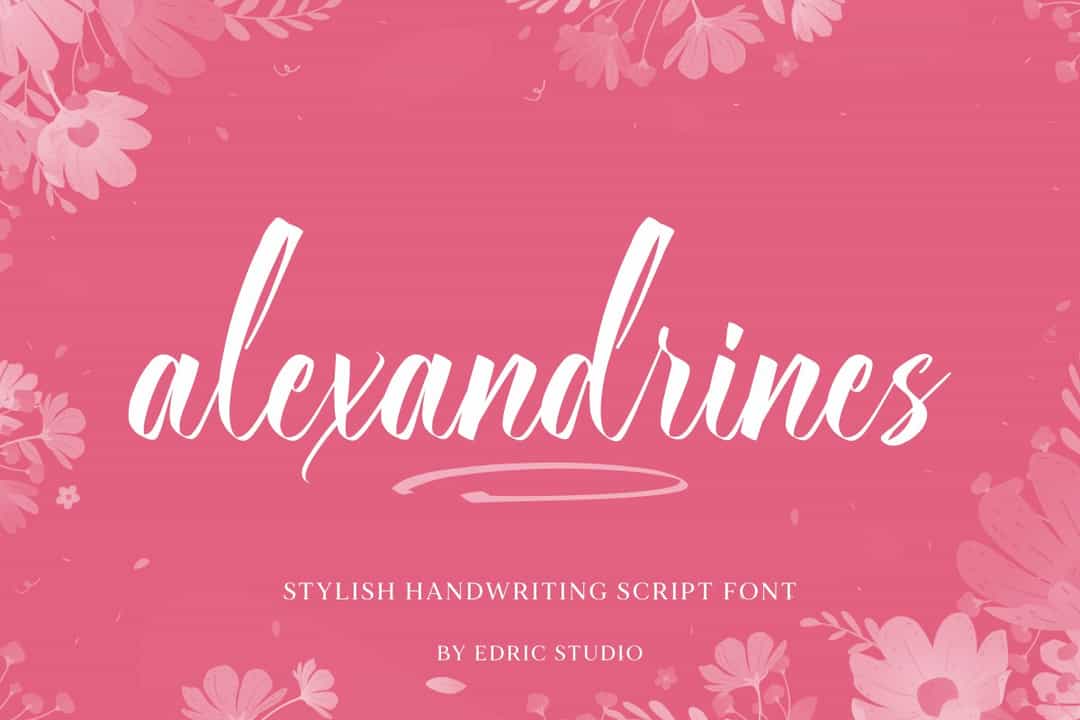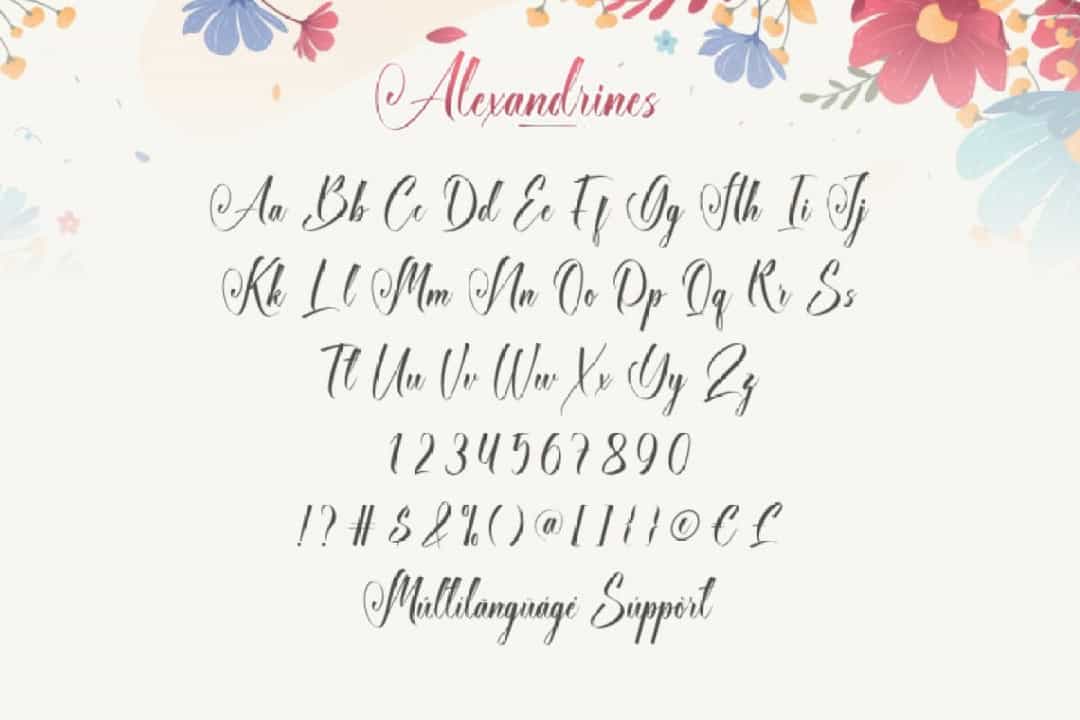
Alexandrines is an elegant handwriting font created by EdricStudio. This font is well-made and easy to read, so it can be utilized by all businesses that require handwritten content such as accessories boutiques furniture cosmetics restaurants hotels spa photography wedding planner writers etc. providing luxury.